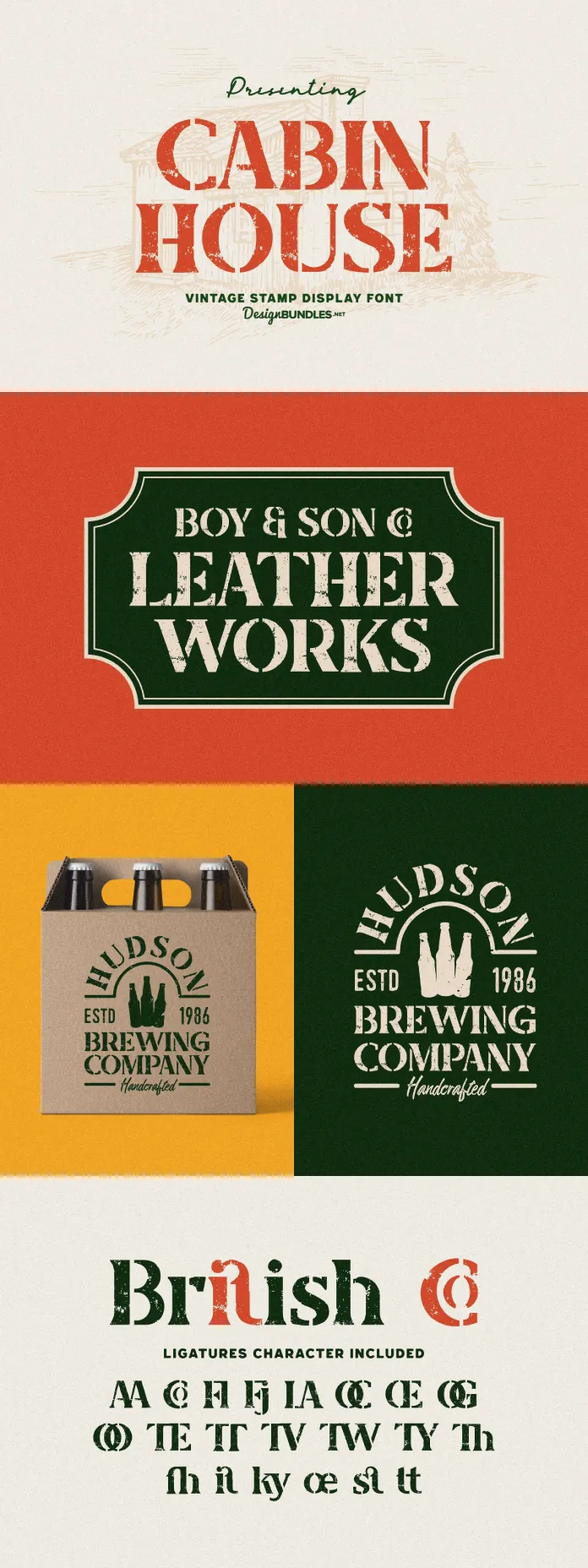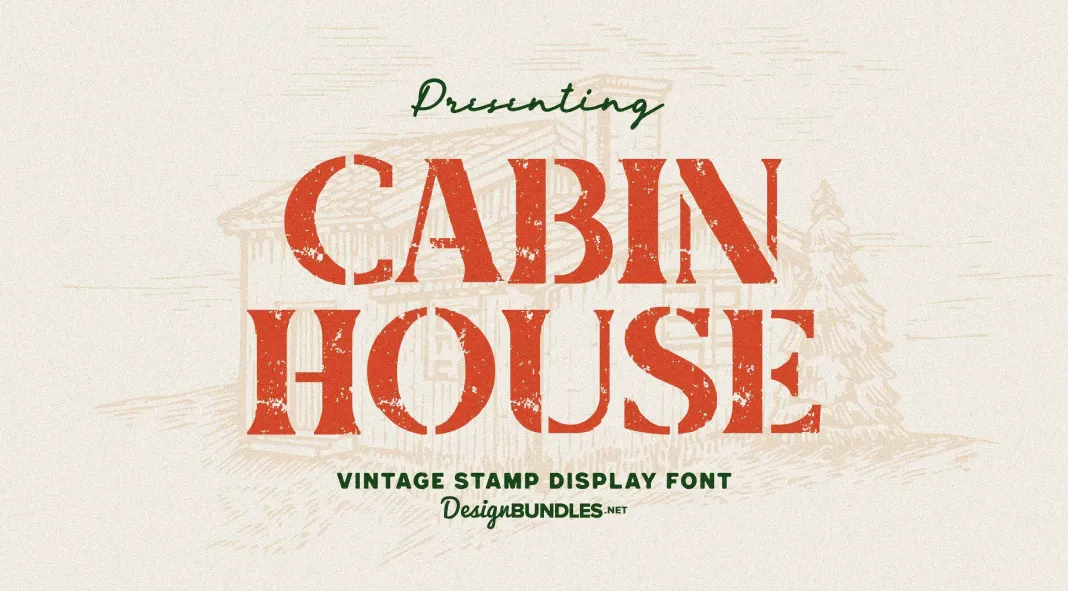
Discover a Great Vintage Stamp Font Perfect for Versatile Design Applications.
The right font can make or break a graphic design project. Whether you’re crafting a logotype, designing packaging, or creating a standout poster, the font you choose plays a pivotal role in conveying your message and aesthetic. One such font that has been gaining traction for its unique charm and versatility is the Cabin House font. This vintage stamp font is not only visually appealing but also remarkably functional across a range of design applications.
The Allure of Vintage Design
Vintage design elements have a timeless appeal that resonates with a wide audience. They evoke nostalgia, authenticity, and a sense of history, making them perfect for brands looking to establish a classic yet contemporary image. Cabin House embodies these qualities with its vintage stamp style, providing a handcrafted feel that is both rustic and refined.
Features of Cabin House Font
Cabin House is packed with features that make it a go-to choice for designers:
1. Uppercase and Lowercase Letters
Cabin House offers a complete set of uppercase and lowercase letters, giving designers the flexibility to create text that is both dynamic and cohesive. The combination of the two cases can add variety and emphasis to your designs.
2. Numerals, Punctuation, and Symbols
A comprehensive set of numerals, punctuation marks, and symbols ensures that your designs are not only beautiful but also functional. This makes Cabin House suitable for a wide range of applications, from creating intricate logotypes to composing detailed posters.
3. Multilingual Support
In today’s global market, having a font that supports multiple languages is crucial. Cabin House comes with multilingual support, allowing you to reach a broader audience without compromising on style or readability.
Applications of Cabin House Font
The versatility of Cabin House makes it suitable for various design projects:
Logotype
Create memorable and distinctive logotypes with Cabin House. Its vintage charm can give your brand a unique identity that stands out in a crowded marketplace. The handcrafted look of the font can convey a sense of tradition and quality, appealing to consumers looking for authenticity.
Brand Packaging
In the competitive world of product packaging, design plays a critical role in attracting customers. Cabin House’s vintage stamp aesthetic can make your packaging designs pop on the shelf, giving them an artisanal, premium feel that suggests care and craftsmanship.
Posters and Quotes
Cabin House is perfect for creating eye-catching posters and inspirational quotes. The vintage style can add a touch of elegance and sophistication, making your designs not only visually appealing but also emotionally resonant.
T-Shirts and Custom Apparel
Fashion is all about making a statement, and with Cabin House, your t-shirt and apparel designs can do just that. The unique font can give your clothing a trendy, retro vibe that appeals to a broad audience, from hipsters to heritage fashion enthusiasts.
Invitations and Custom Designs
Whether it’s for a wedding, a corporate event, or a casual get-together, Cabin House can add a personalized touch to your invitations. Its versatile nature ensures that your designs will be both beautiful and appropriate for the occasion.
Cabin House is more than just a font; it’s a design tool that brings a vintage, handcrafted aesthetic to any project. Its wide range of features and applications make it an invaluable asset for designers looking to create impactful, memorable designs. From logotypes to t-shirts, Cabin House offers the flexibility and style needed to elevate your work and captivate your audience.
So, if you’re looking to infuse your designs with a touch of vintage charm and modern versatility, Cabin House is the perfect choice. Explore its potential and see how it can transform your creative projects into works of art.